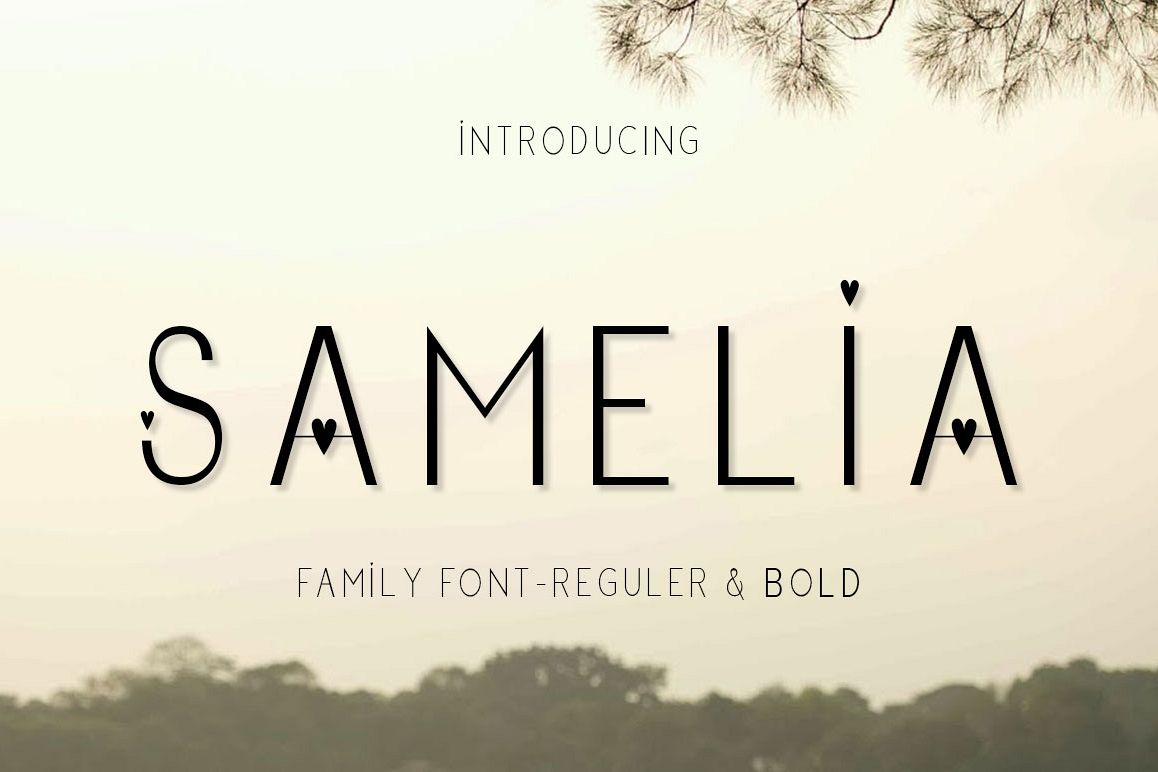
Samalia Family Font
Samelia Reguler
Samelia Bold
INTRODUCING Samelia Sans Serif is a very beautiful, modern, romantic and elegant family font, can be used for your project design needs.
Features Basic Latin A-Z and Numbers Symbols